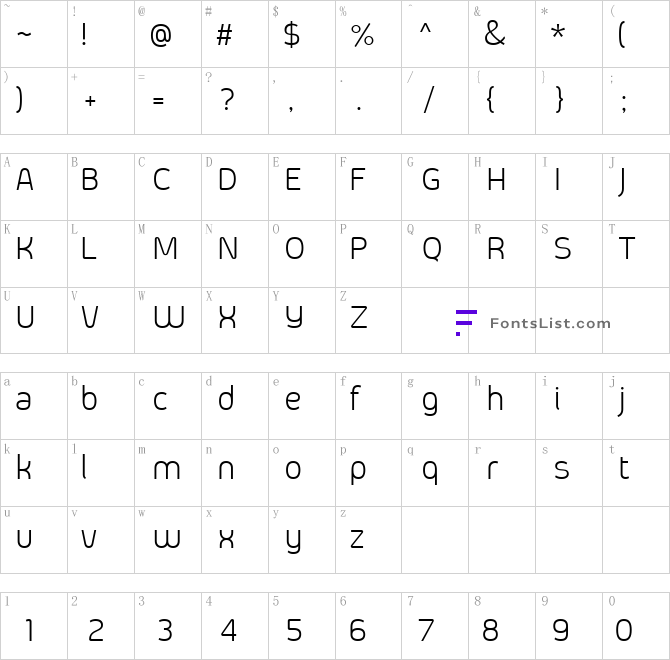
- Font Name:Aeroportal
- Subfamily:PerOlavWalmann,Aptas: Aeroportal: 2006
- Full Name:Aeroportal
Aeroportal.ttf is a very beautiful artistic font, Aeroportal.ttf is widely used in the design and printing of various books and pictures,Aeroportal.ttf has a strong visual impact,Aeroportal.ttf is a commonly used font in newspapers, magazines and books, and is used in posters, e-commerce Poster design, store design, logo design, font design and other fields.Aeroportal.